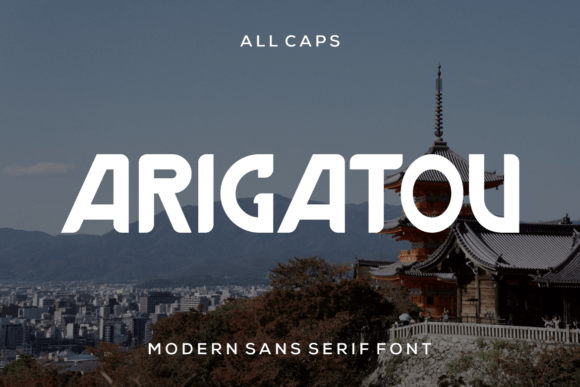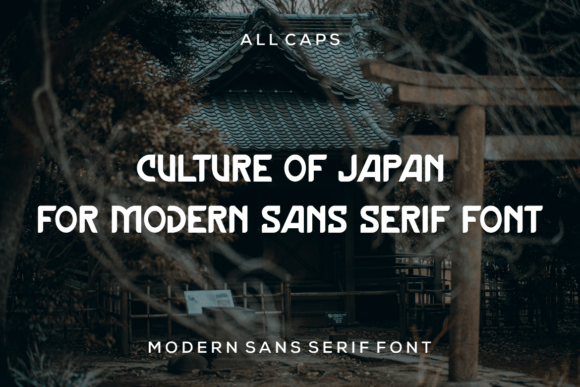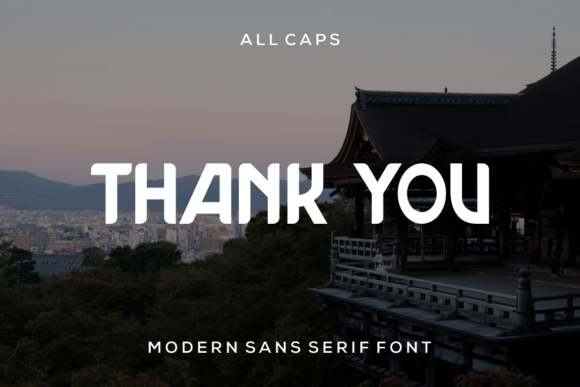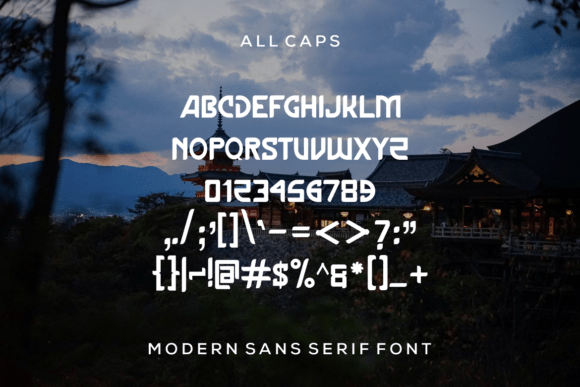
Introduction to Kiyomizu Font
The moment of truth – when your creative project comes together and the audience takes notice. It’s the subtle yet striking combination of design elements that makes all the difference. And, at the heart of it, lies a reliable design resource – the perfect font.
Introducing the Kiyomizu Font, a modern sans serif font designed to capture attention and convey your message with clarity. With its high-quality, clean lines and transparent background, Kiyomizu is an ideal choice for logos, headlines, and a wide range of creative projects. Whether you’re working on a digital or print design, this versatile font ensures readability and makes a lasting impression.
Key Features of Kiyomizu Font
- High-quality, elegant design ideal for various creative projects.
- Features a transparent background, allowing for easy customization and blending with other design elements.
- Supports multiple languages, making it suitable for international design projects.
Honest Review: Kiyomizu Font
I recently stumbled upon the Kiyomizu Font, and I’m excited to share my honest thoughts about this design resource. As a designer, I’m always on the lookout for high-quality fonts that can elevate my creative projects.
Here are some of the things that work well about the Kiyomizu Font:
- ✨ Elegant and minimalist design aesthetic that’s perfect for modern branding
- ✨ Clear and readable text, even at smaller font sizes
- ✨ Transparent background, making it easy to use on any color scheme
- ⚠️ Limited character set, which might not be suitable for longer texts
- ⚠️ Not suitable for display use, as it’s a more subtle font
Overall, I’m impressed with the Kiyomizu Font’s design quality and versatility. It’s a great addition to any designer’s toolkit, especially for projects that require a clean and modern look. If you’re looking for a reliable design resource, I’d definitely recommend giving it a try.
Kiyomizu Font is a high-quality, free download design resource ideal for creative projects requiring a unique touch. With its elegant design, this font is perfect for various applications.
For the best results, use the Kiyomizu Font with a transparent background to create a seamless design. Experiment with different font sizes and styles to add visual interest to your project.
The Kiyomizu Font is perfect for:
- Print and digital marketing materials